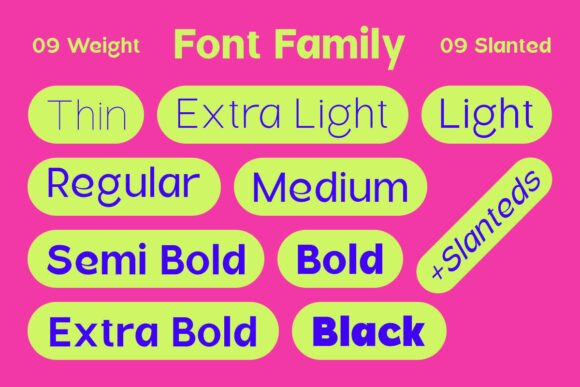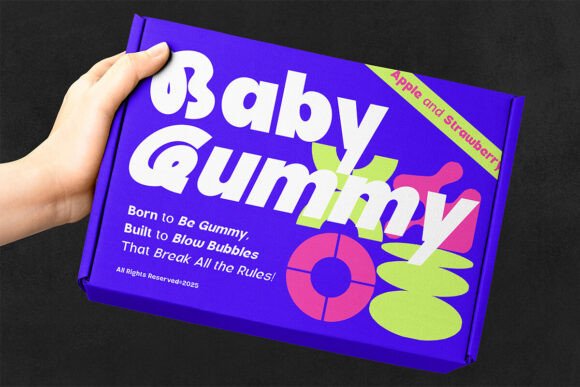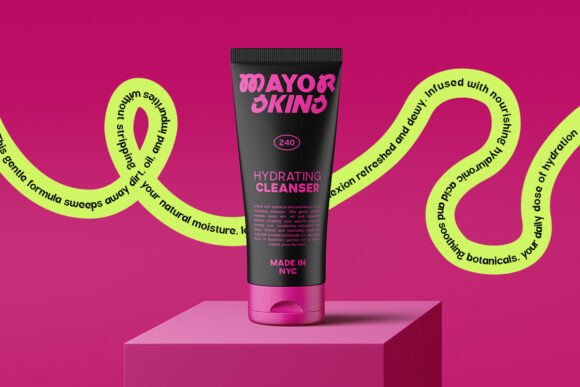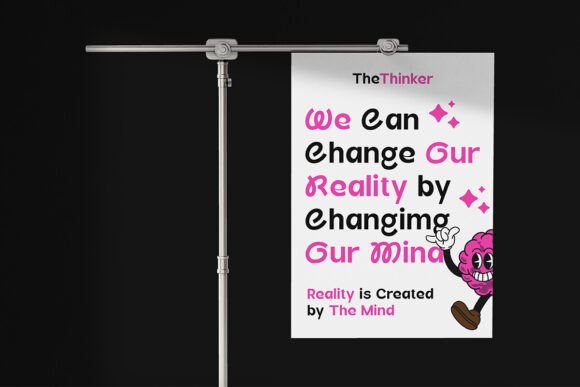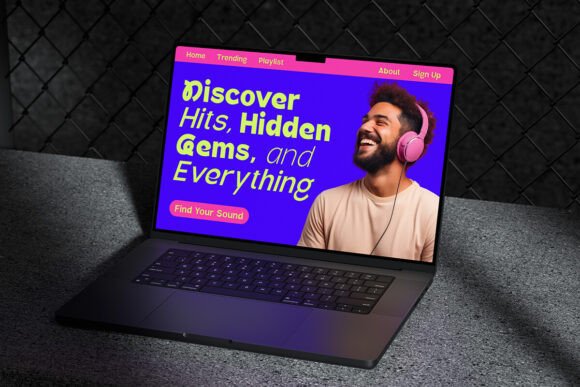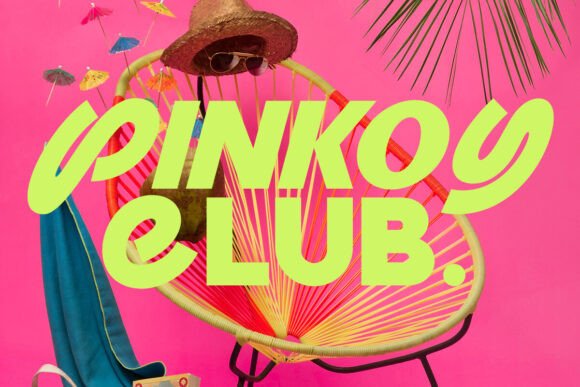
The Emak Font: A Game-Changer for Modern Typography
I’ll never forget the frustration of working on a project, hours spent scrolling through font libraries, and still, nothing seemed quite right. The client wanted something bold, yet elegant; modern, yet timeless. It was then that I stumbled upon the Emak font. With its clean lines, versatile weights, and dynamic style options, it was like a breath of fresh air. In this article, I’ll share my journey with Emak, its features, and how you can make the most of this incredible font in your designs.
An Honest Review of Emak Font
What I Love About Emak ✨
- 💪 **Versatility**: With 18 weights ranging from Thin to Black, along with Slant styles and a Variable Font option, Emak provides ultimate flexibility for designers.
- 🎨 **Clean and Modern Lines**: Emak’s design makes it perfect for professional branding, while its slanted styles and special alternates allow for more artistic and dynamic typography.
- 🔍 **Precision**: The Variable Font feature allows for real-time adjustments to weight and slant, giving designers precise control over their typography.
- 📈 **Scalability**: Whether you’re crafting striking headlines, sleek branding, or engaging digital content, Emak delivers both power and precision.
- ⚠️ **Learning Curve**: With so many features and options, it might take some time to get familiar with Emak’s capabilities.
Exploring OpenType Features, Glyphs, and Stylistic Alternates
Emak’s OpenType features allow for advanced typography. You can access:
- Stylistic alternates for more creative freedom.
- Glyphs for adding unique touches to your text.
- Ligatures for a more natural text flow.
The Backstory of Emak Font
Emak was designed with the goal of creating a versatile, modern sans-serif font that could cater to a wide range of creative fields. The designer aimed to balance functionality with expressiveness, resulting in a font that’s both clean and dynamic.
Q: What makes Emak font unique?
A: Emak’s versatility, with 18 weights and a Variable Font option, makes it stand out. Its clean lines and dynamic style options also set it apart.
Q: Is Emak suitable for body text?
A: While Emak excels in headlines and titles, its readability in body text depends on the weight and style used. Thinner weights might work well for longer texts.